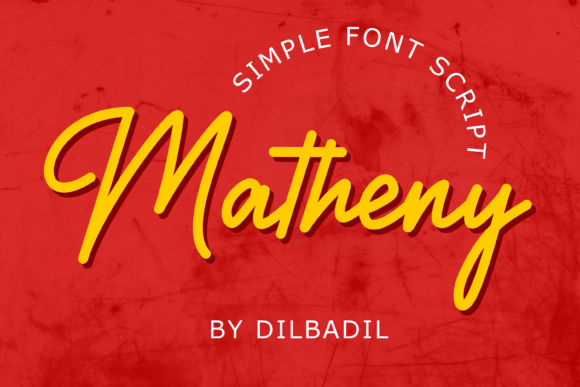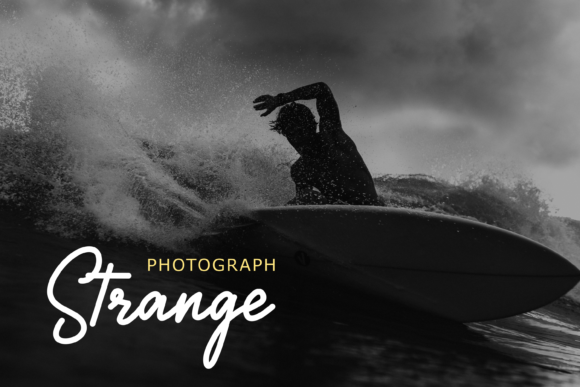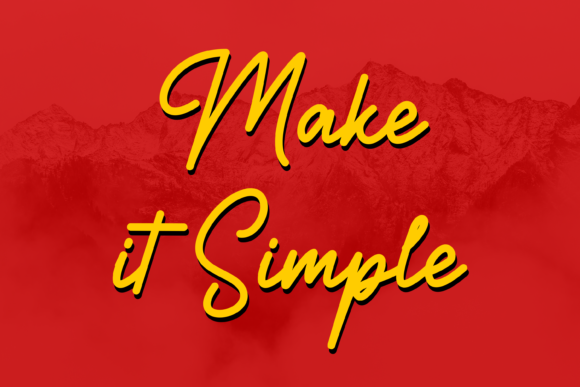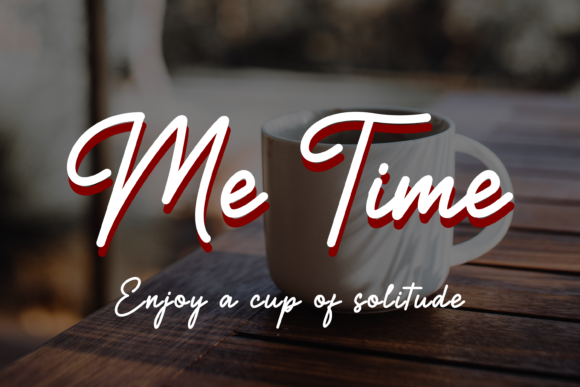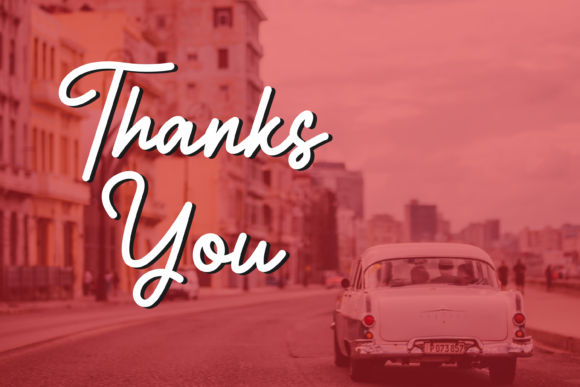
Matheny Font
About Matheny Font
Matheny feels playfully nostalgic and delivers an incredible vintage aesthetic. It is very suitable to be used in various design projects, such as quotes, photography, invitation cards, clothes designs, stickers and others.